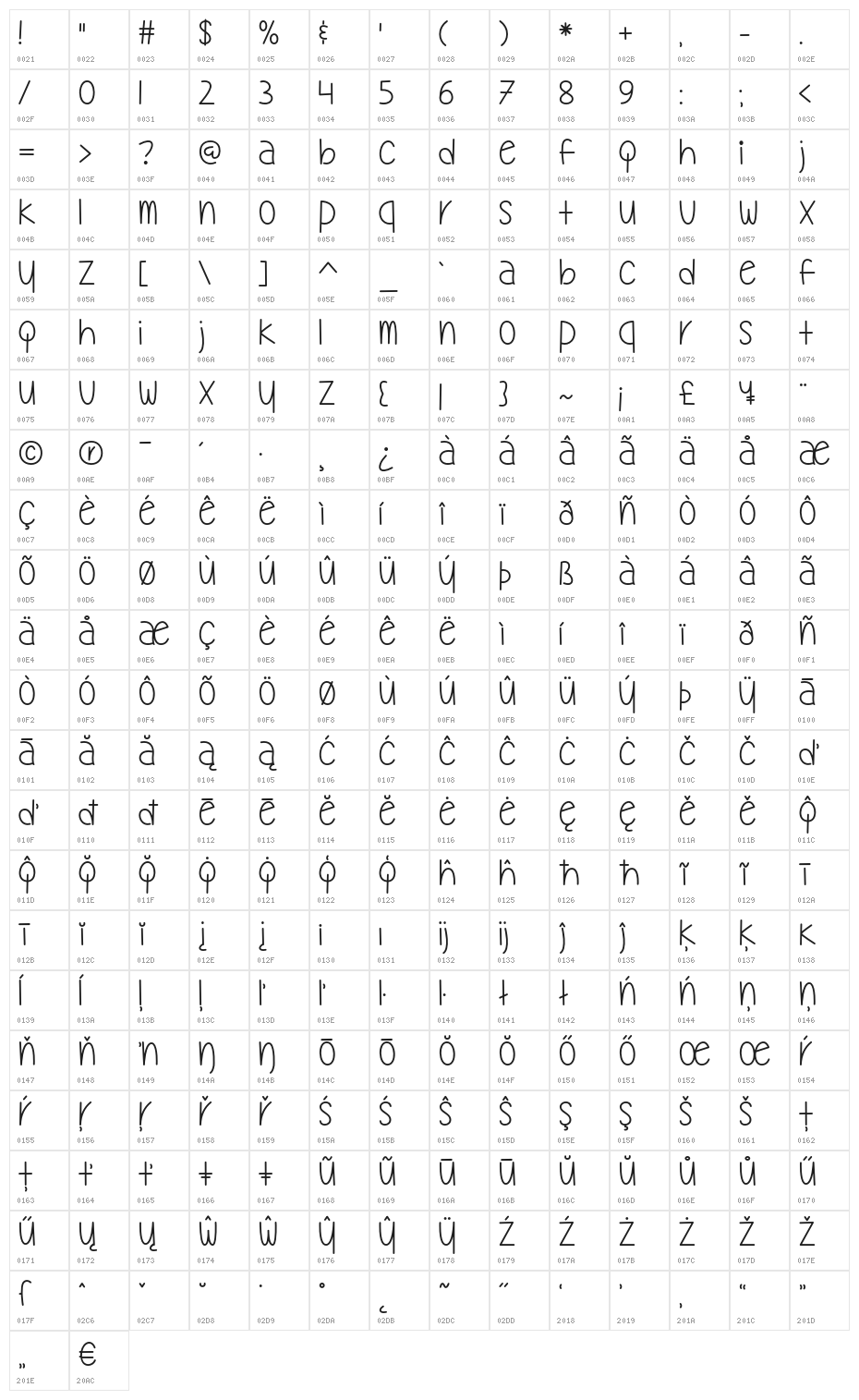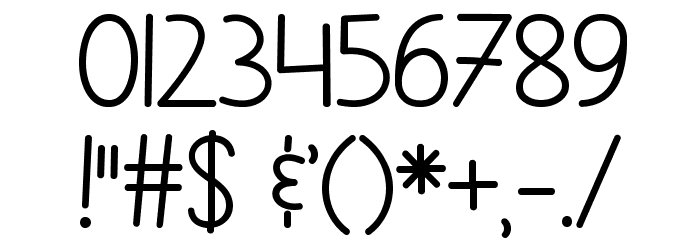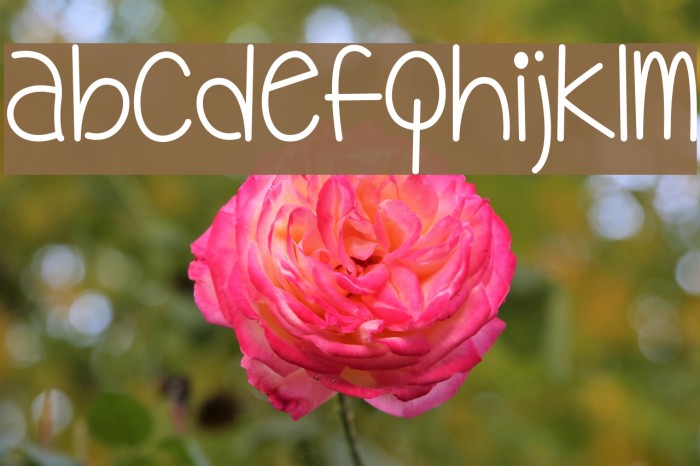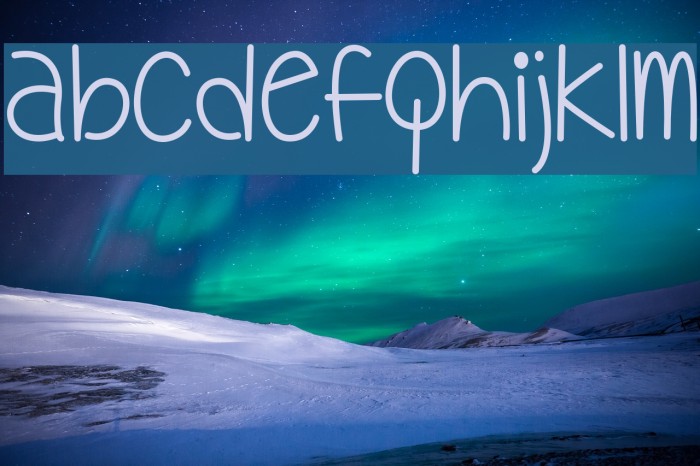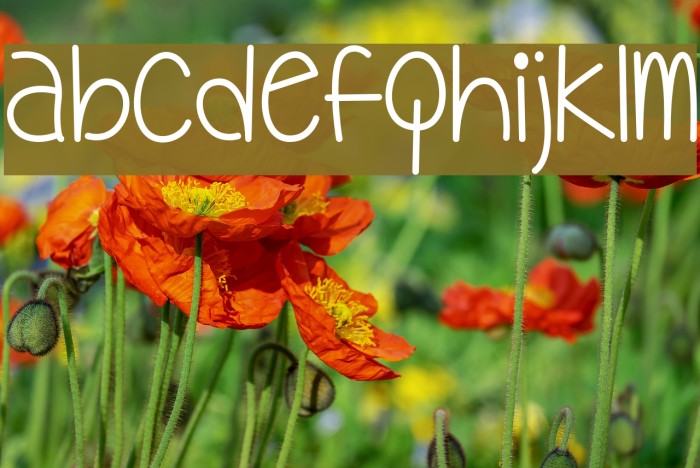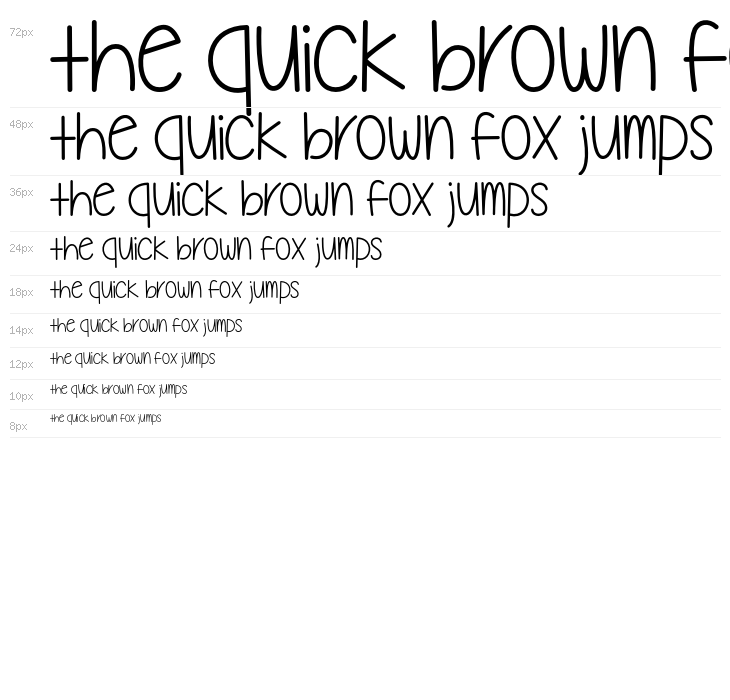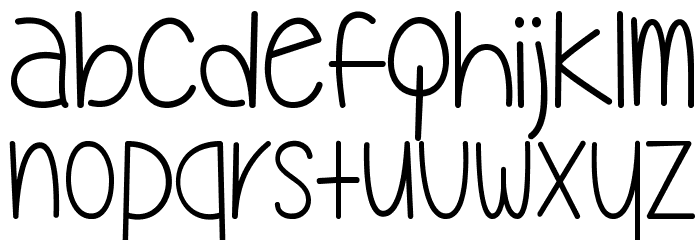
MyOhMy Font
MyOhMy Description
This playful and whimsical font features rounded, elongated characters with a hand-drawn appearance. The letters are slightly uneven, adding a charming, informal feel. The strokes are consistent in width, giving it a uniform look despite its quirky style. The font includes both uppercase and lowercase letters, numbers, and a variety of special characters, making it versatile for different uses. Its friendly and approachable design makes it suitable for projects that aim to convey a sense of fun and creativity.